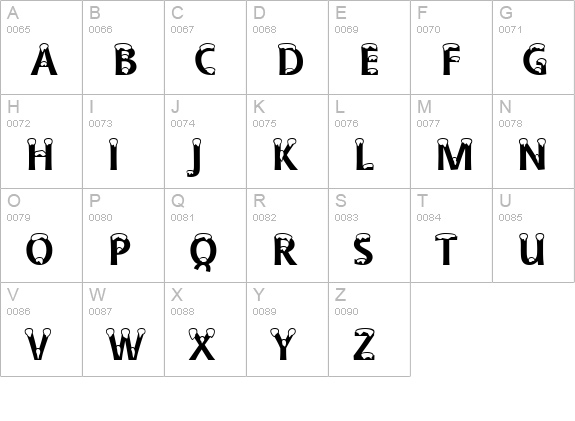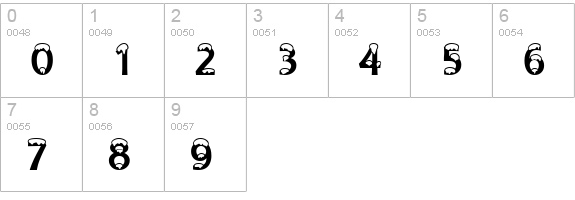
Snowdrift Font Details
Snowdrift is a beautiful and versatile typeface that embodies the essence of winter. Its delicate and intricate design captures the ethereal beauty of snowflakes gently falling from the sky, creating a mesmerizing visual experience. With its soft curves and graceful strokes, Snowdrift is perfect for adding a touch of elegance to any project. This font is not only visually stunning, but it is also incredibly versatile. Its clean and legible characters make it suitable for a wide range of design applications, from invitations and greeting cards to logos and branding materials. Snowdrift effortlessly blends sophistication with a hint of playfulness, making it an ideal choice for both professional and personal projects. What's even better is that Snowdrift is available for free download at FontsMarket.com. This means that you can add this exquisite font to your design arsenal without any cost. Whether you are a professional designer or a creative enthusiast, Snowdrift offers you the opportunity to bring a touch of winter magic to your creations, without breaking the bank. So, why wait? Embrace the beauty of winter with Snowdrift font. Download it for free at FontsMarket.com and let your imagination soar as you create stunning designs that capture the essence of the season.